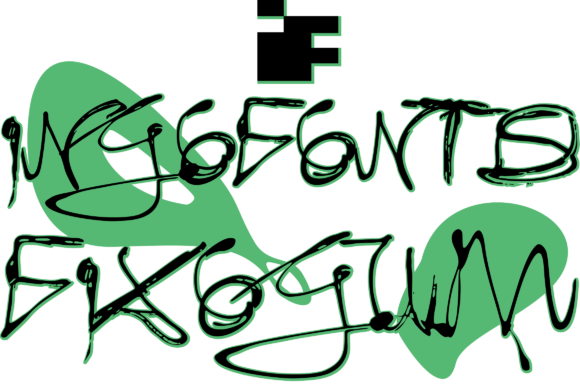
Unleash the Power of Expression with Fixogum: A Script Font that Speaks Volumes
In a world where words dance upon the digital canvas, Fixogum emerges as a symphony of strokes, a visual masterpiece that elevates your designs to new heights of creativity. This captivating script font, meticulously crafted by the visionaries at ingoFonts, is a testament to the transformative power of typography, a font that breathes life into your words, enchanting your audience with its effortless elegance.
Step into the realm of Fixogum, where the written word transcends its boundaries, becoming an art form that captivates and enchants. With its bold and distinctive strokes, Fixogum commands attention, leaving an indelible mark on the hearts and minds of your readers. Whether you're a seasoned designer seeking to elevate your projects or a budding entrepreneur yearning to make a lasting impression, Fixogum is your gateway to typographic excellence.
Immerse yourself in the world of Fixogum and let your creativity flow effortlessly as you explore endless possibilities. Design logos that exude a timeless sophistication, craft social media posts that spark engagement, or create invitations that ignite anticipation. Fixogum's versatility is boundless, adapting seamlessly to any project you envision, adding a touch of magic to every endeavor.
Experience the allure of Fixogum, a font that speaks volumes even in silence. Its carefully crafted characters dance across the digital landscape, evoking emotions and conveying messages with a depth that transcends words alone. Let Fixogum be your muse, your artistic partner, as you weave tales of love, laughter, dreams, and aspirations through the art of typography.
Welcome to the world of Fixogum, where fonts take on a life of their own, where every letter is a brushstroke, every word a masterpiece. Embrace the power of this extraordinary script font and unlock a new dimension of creativity, transforming your designs into works of art that capture the essence of your vision.